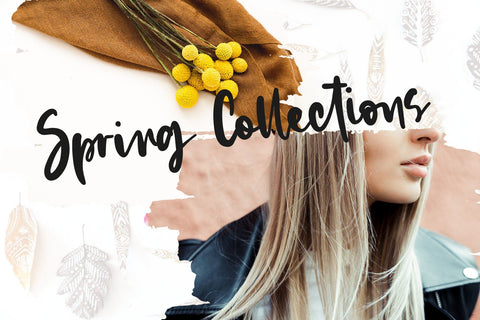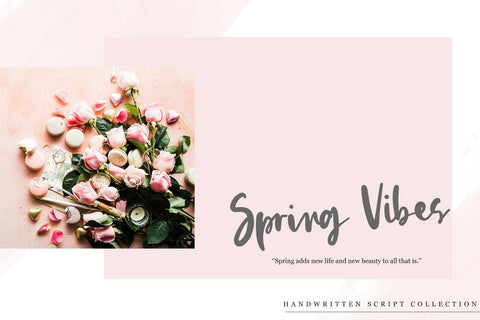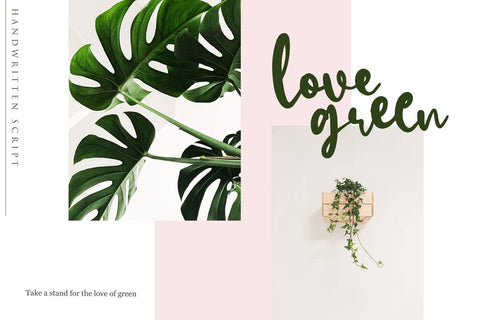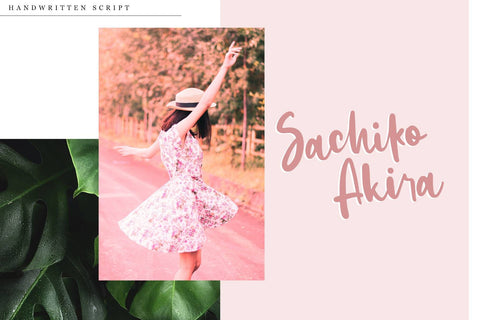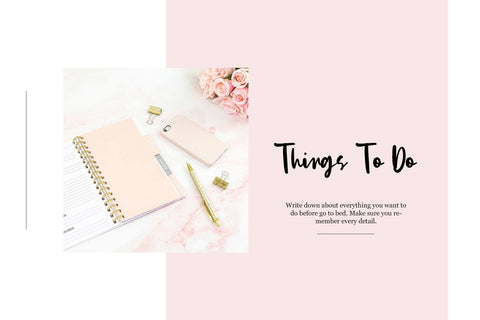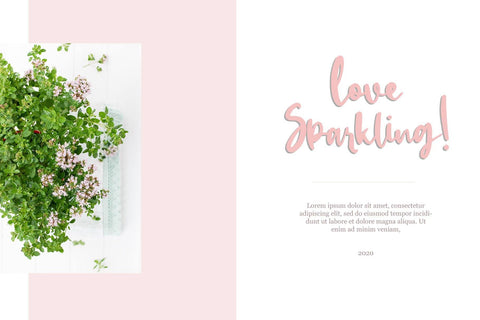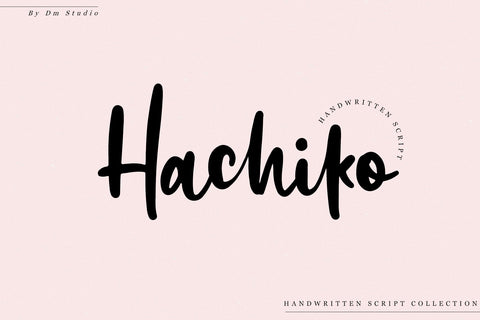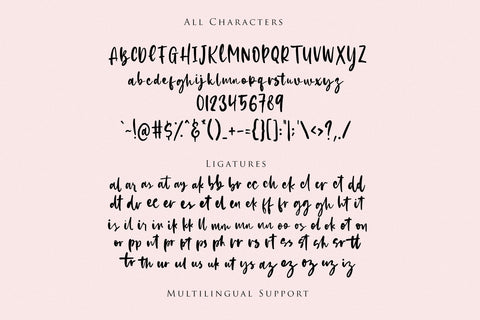
Hachiko - Handwritten Font
Hachiko
Handwritten Script Font
Play with this gorgeous casual handwritten font! Comes with a quirky style and 74 ligatures to make your design more delightful!
- Numeral
- Symbols & Punctuations
- 74 Ligatures